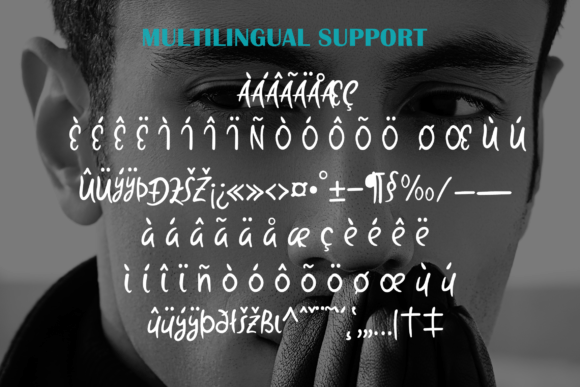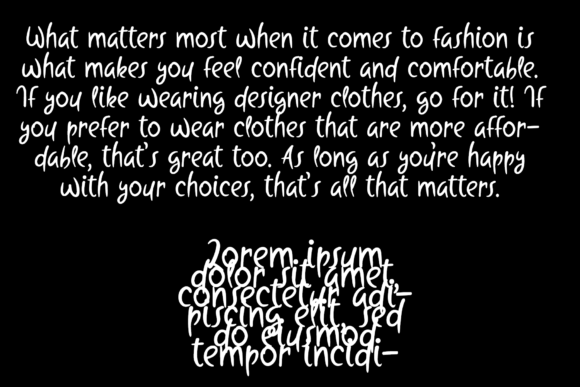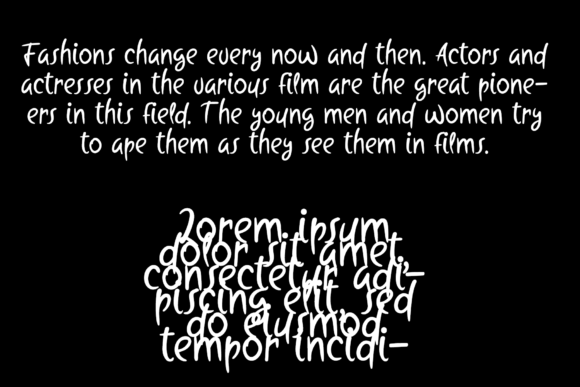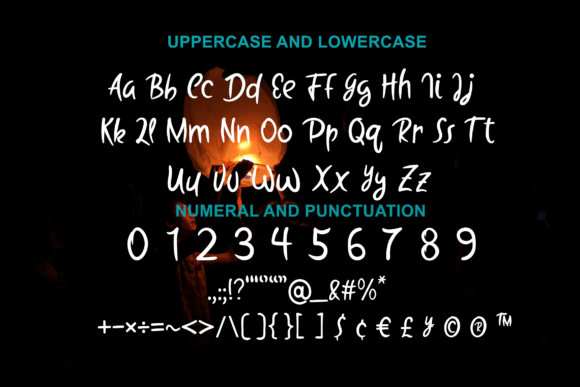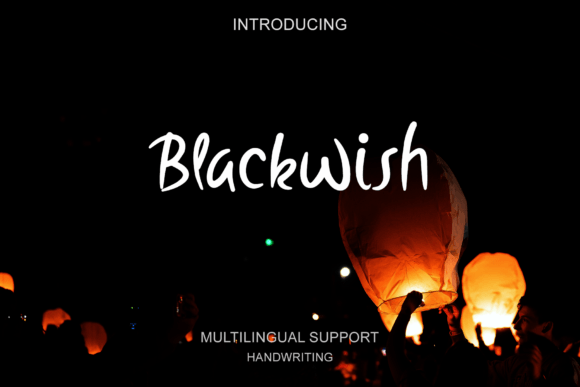
Discover the Charm of Blackwish Font: A Handwritten Delight
Are you on the hunt for a font that exudes a sense of casual elegance and playfulness? Look no further than Blackwish, a beautiful handwritten font inspired by the nostalgic feel of a grandmother’s journal. This charming font is perfect for a wide range of design needs, from crafting sweet greeting cards to creating stand-out branding that captures the essence of modern urban style.
The Inspiration Behind Blackwish
Blackwish draws its inspiration from the intimate and personal feel of handwritten notes, reminiscent of those found in a grandmother’s journal. This font embodies a sense of warmth and familiarity, making it an ideal choice for designers looking to add a touch of personality to their work. The casual, yet elegant appearance of Blackwish makes it versatile enough to be used in various design contexts, from modern advertising to book titles and special event branding.
Characteristics of Blackwish Font
Blackwish is characterized by its:
- Handwritten style: Each letter is crafted to mimic the natural flow of handwriting, giving your designs a personal and unique touch.
- Casual and playful feel: The font’s laid-back vibe makes it perfect for projects that require a friendly and approachable tone.
- Versatility: Whether you’re working on branding, urban design, modern advertising, book covers, or special event materials, Blackwish adapts seamlessly to any design need.
Uses of Blackwish Font
The versatility of Blackwish makes it suitable for a myriad of design projects, including:
- Handwritten notes and letters: Add a personal touch to your correspondence with a font that feels like it was written just for the recipient.
- Sweet greeting cards: Create heartfelt and memorable greeting cards for any occasion.
- Beautiful quotes: Highlight inspirational and thought-provoking quotes with a font that adds an emotional depth to your message.
- Stand-out branding: Use Blackwish to create a brand identity that stands out for its warmth and personality.
- Urban design and modern advertising: Bring a touch of elegance and sophistication to your urban design and advertising projects.
- Book/Cover Titles: Give your book covers a distinctive look that captures the essence of your story.
- Special events and adventures: Create invitations, posters, and promotional materials for events and adventures that exude excitement and anticipation.
- Headlines and clothing designs: Use Blackwish to create eye-catching headlines and fashion designs that speak to a younger, more urban audience.
Why Choose Blackwish Font?
In a world where digital communication often lacks a personal touch, Blackwish offers a refreshing alternative. Here are a few reasons why designers and crafters should consider adding Blackwish to their toolkit:
- Unique and Personal: Blackwish brings a level of uniqueness and personality to your designs, setting them apart in a crowded digital landscape.
- Emotional Connection: The warmth and playfulness of Blackwish can help create an emotional connection with your audience, making your designs more impactful.
- Versatility: With its wide range of applications, Blackwish is a valuable asset for any designer looking to expand their creative possibilities.
Blackwish font is a beautiful, handwritten typeface that brings a touch of nostalgia and playfulness to any design project. Its inspiration from grandmother journals gives it a unique, personal feel that’s hard to find in digital fonts. Whether you’re a designer looking for a versatile font for your next project or a crafter seeking to add a personal touch to your handmade creations, Blackwish is an excellent choice. Its suitability for a wide range of applications, from sweet greeting cards to urban design and modern advertising, makes it a valuable addition to any creative toolkit.
So why settle for ordinary fonts when you can add a touch of charm and personality to your designs with Blackwish? Explore the creative possibilities that this beautiful handwritten font has to offer and take your designs to the next level.